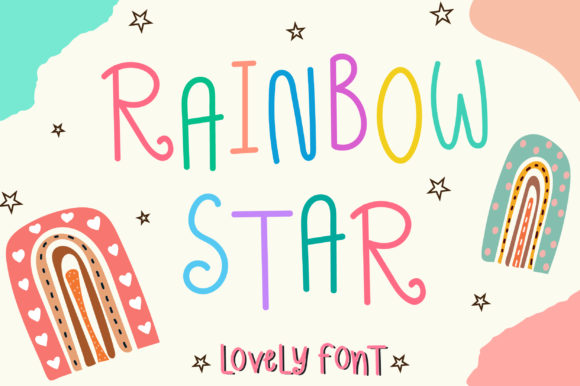
Feast your eyes on Rainbow Star, the darling of script fonts, meticulously crafted by PinkPearly to inject a touch of whimsy and delight into your creative endeavors. This font is more than just a collection of letters; it's a passport to a world where imagination reigns supreme.
With its irresistibly charming curves and playful spirit, Rainbow Star will transform your designs into captivating masterpieces. Its delicate strokes, reminiscent of a gentle summer breeze, will add a touch of magic to any project you undertake.
Dive into a kaleidoscope of possibilities with Rainbow Star. Its versatility knows no bounds, making it the perfect companion for a wide range of projects, from whimsical invitations and heartwarming greeting cards to eye-catching posters and vibrant social media graphics. Let your creativity soar and watch as Rainbow Star elevates your designs to new heights of enchantment.
Don't settle for ordinary fonts. Embrace the extraordinary with Rainbow Star. Its enchanting personality will captivate your audience, leaving them spellbound by your creations. Dare to be different, dare to be bold, and let Rainbow Star be your guiding light on this extraordinary journey of self-expression.